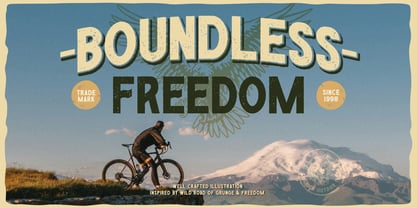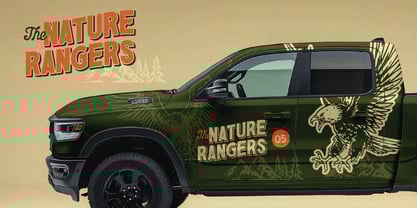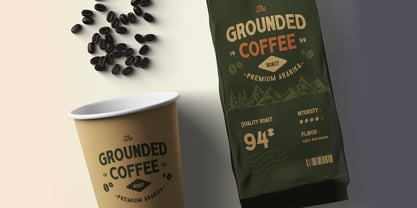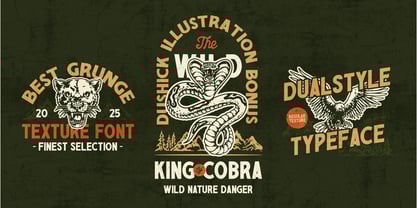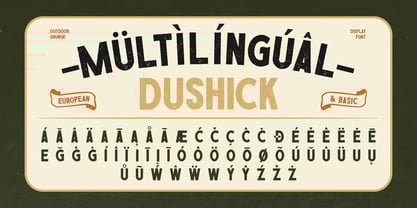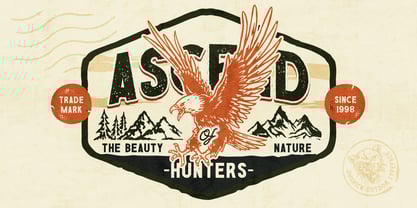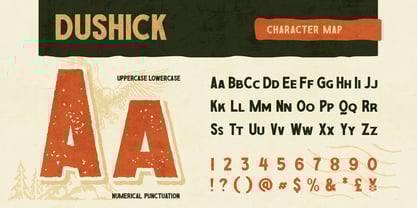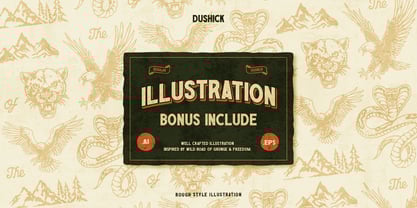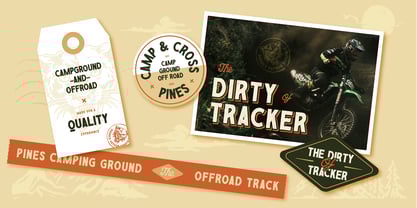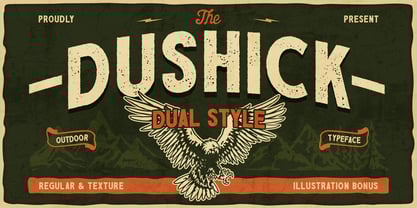
Dushick
by Burntilldead
The Dushick Font Family was designed by Eric Kurniawan and published by Burntilldead. Dushick contains 2 styles and family package options.
Proudly present, Dushick, a bold and rugged display font that captures the spirit of the great outdoors. This font offers both a clean regular style and textures style for added versatility and stand out. Also this font include multilingual support making it suitable for international project design. Ideal for branding, streetwear, restaurant, logos, posters, merchandise, outdoor branding, camping gear and any design project with rustic and adventurous touch. To support the theme of this font, which is adventurous, this font comes with cool bonus illustration.
Features:
• A - Z set (Uppercase & Lowercase)
• Number
• Punctuation
• Multilingual
• Dushick Characters Map